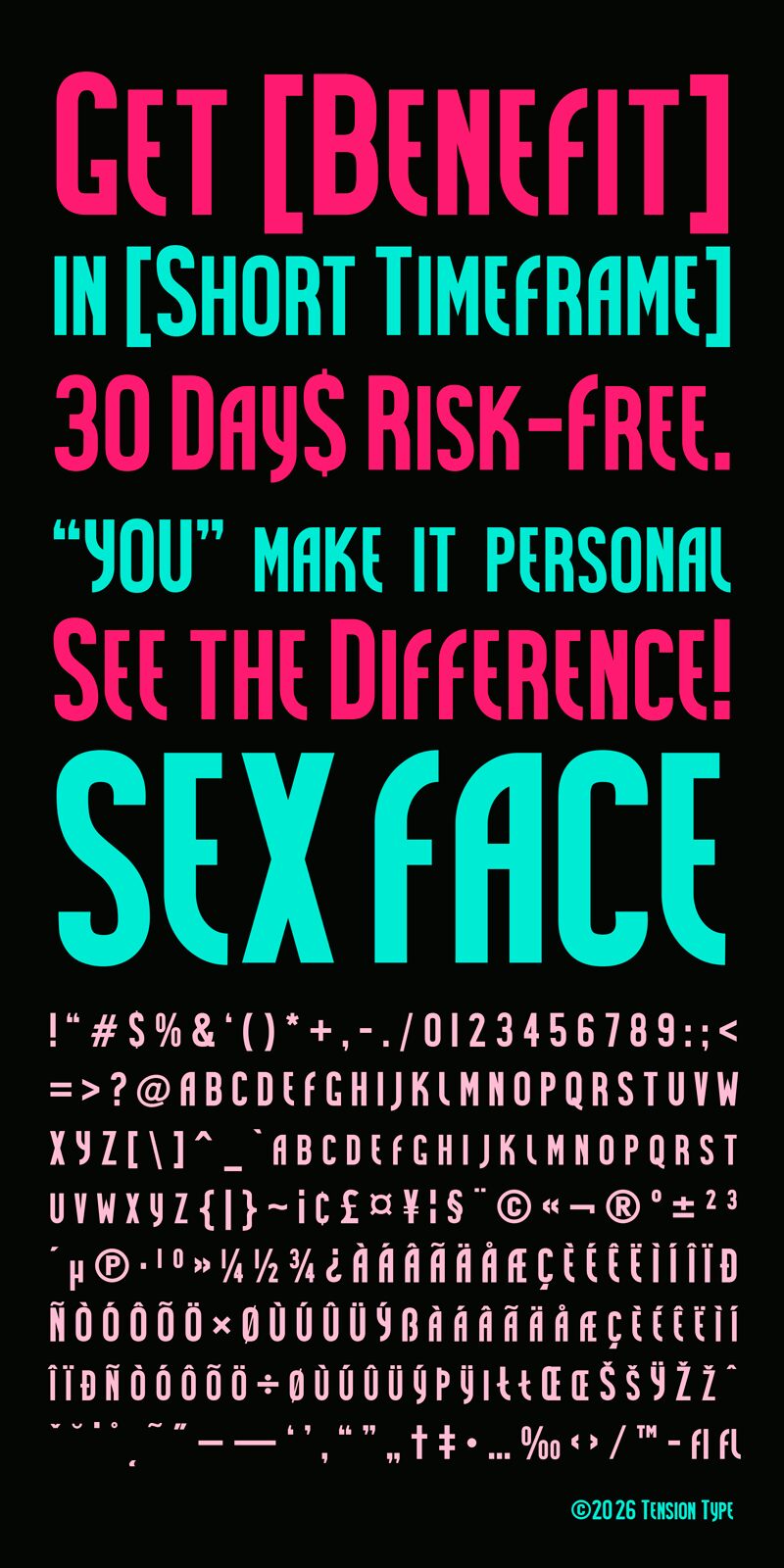
Sex Face Small Caps font family by Tension Type is a free sans serif font family for personal use. The typography expression is condensed, geometric, and dynamic. It’s a two-font-style font family (the second font is a small caps set). Sex Face is impactful and retro-inspired, with seamless curves and exciting cuts. The character design is display oriented and perfect for attention grabbing.
Use the font in visual identities, poster designs, social media posts, and magazines. The versatile single weight can be paired with different weights and styles of other fonts. For app or website UI/UX designs, a uniform and fluid body and headings are also needed.
My second design is a sans serif font that features a condensed style, which I greatly admire. This free font is perfect for use in headlines, posters, logos, or any large format designs. However, it may not be the best choice for body text due to its unique characteristics.